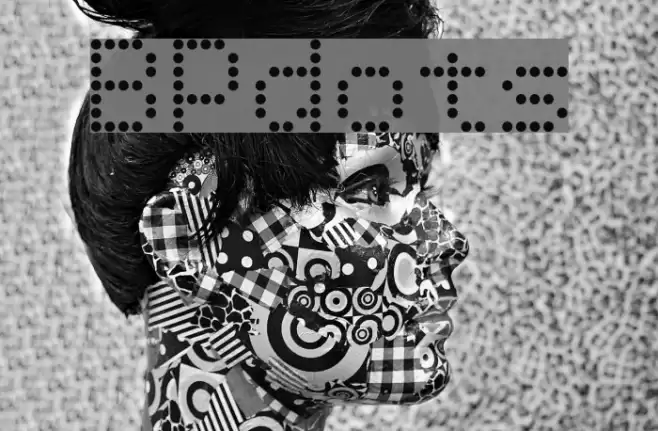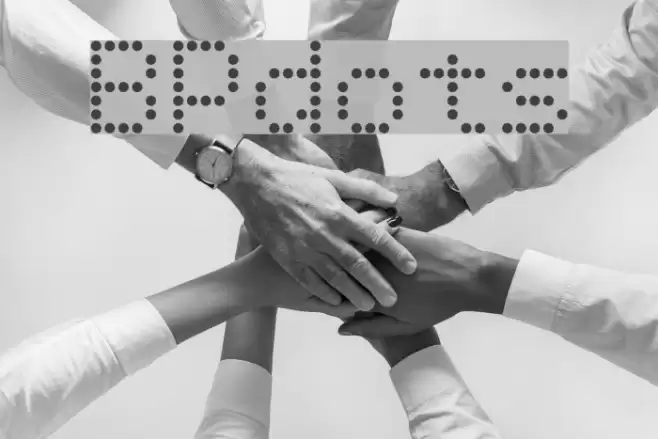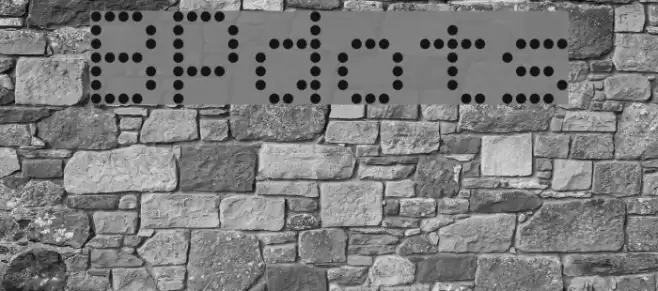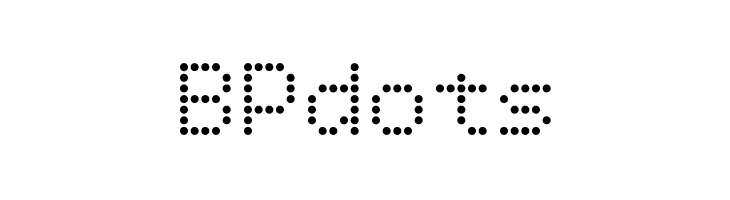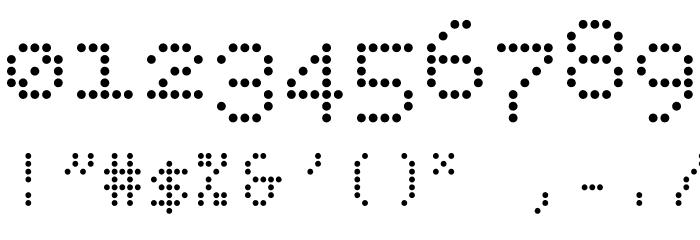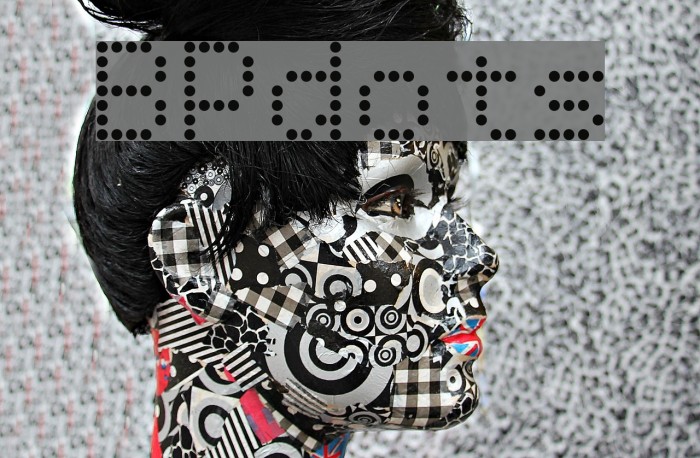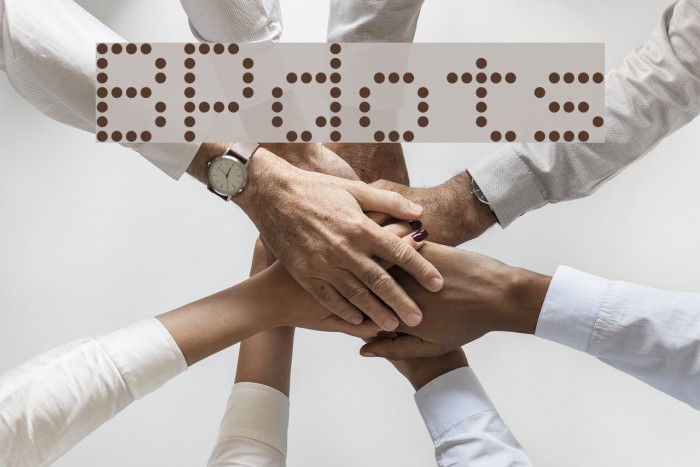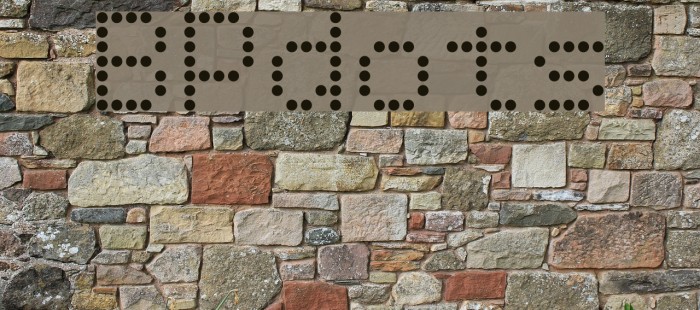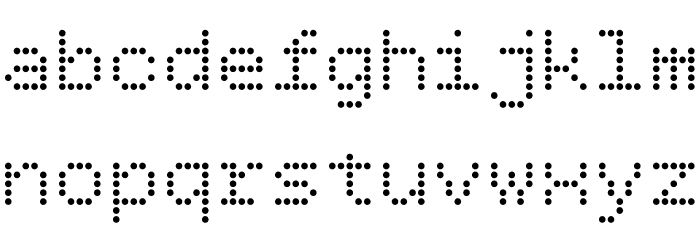
BPdots Font
BPdots Description
This font is a unique and playful design composed entirely of dots forming each character. The letters and numbers are constructed with a consistent pattern of evenly spaced dots, creating a digital and modern appearance. The font maintains a uniform size and spacing for each dot, ensuring readability while providing a distinctive style. The uppercase and lowercase letters, as well as numbers and special characters, are all crafted with this dotted technique, making it ideal for creative and eye-catching designs. Its geometric and structured form gives it a futuristic and tech-inspired look, perfect for projects that require a modern and unconventional typeface.
- Proposed Projects: Ideal for digital art, tech-themed designs, posters, and creative branding.